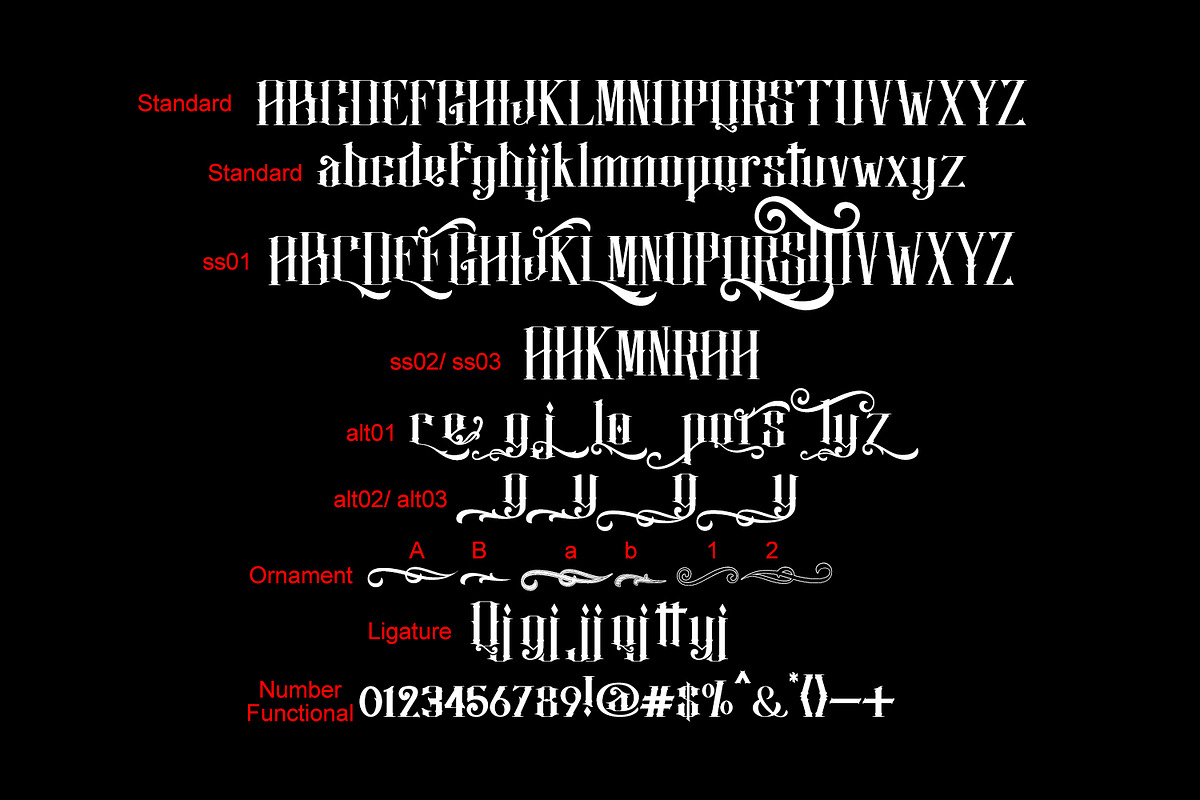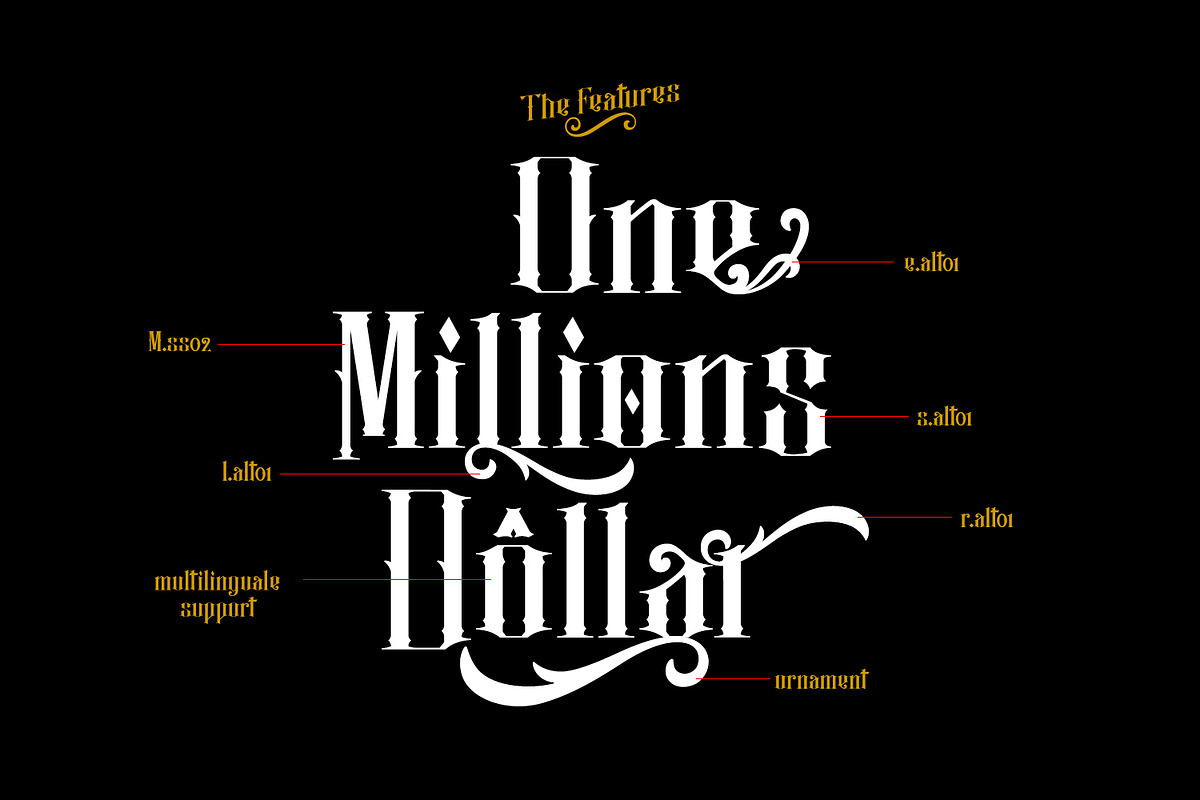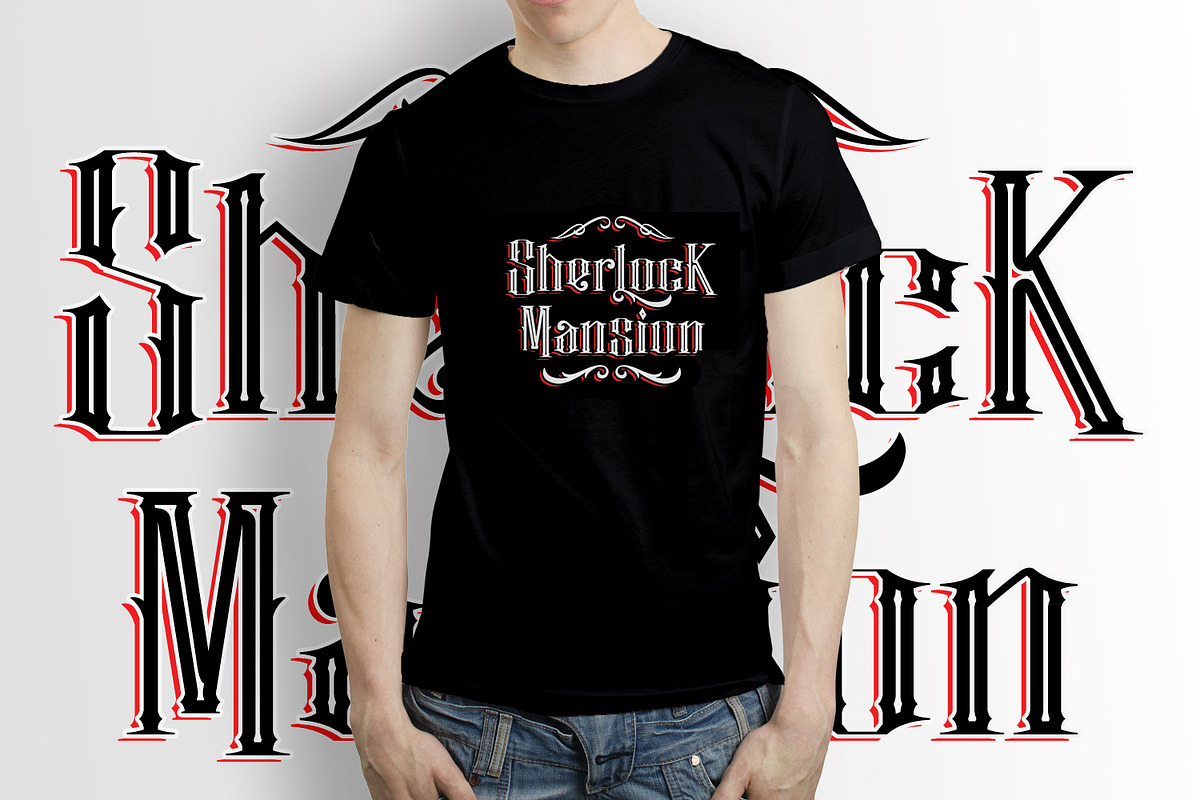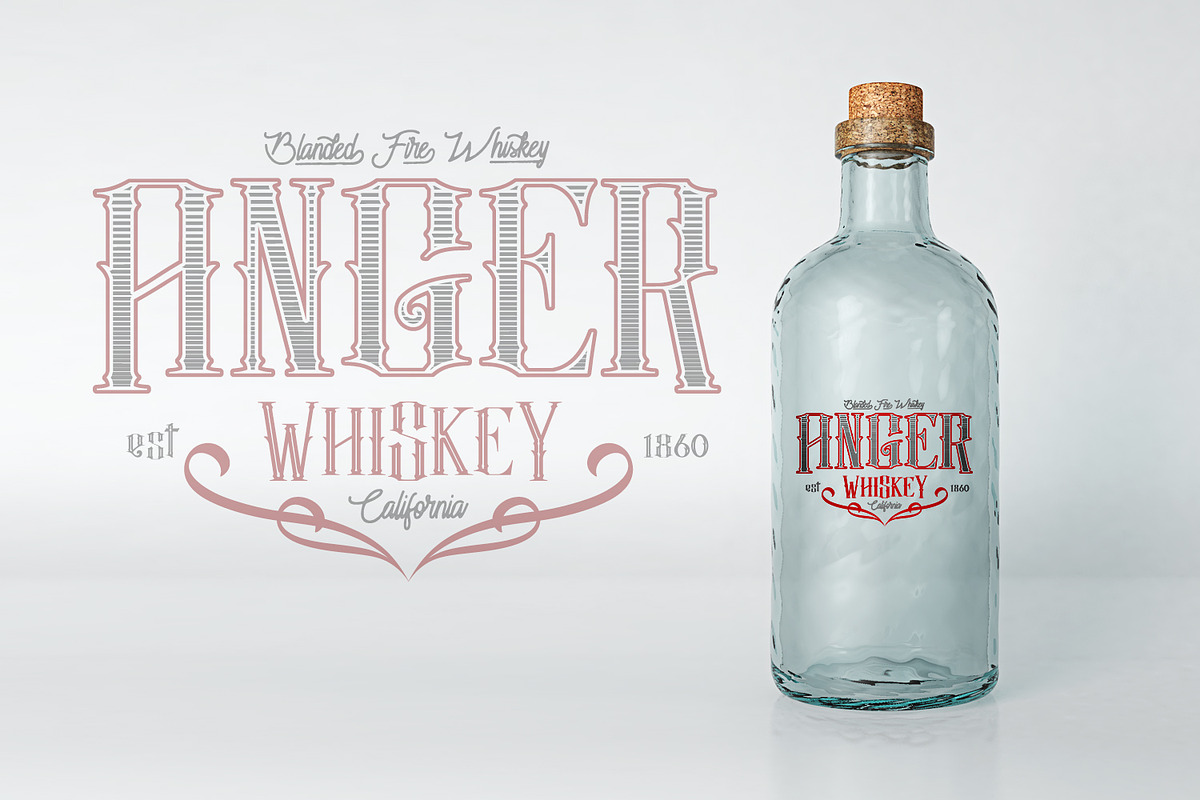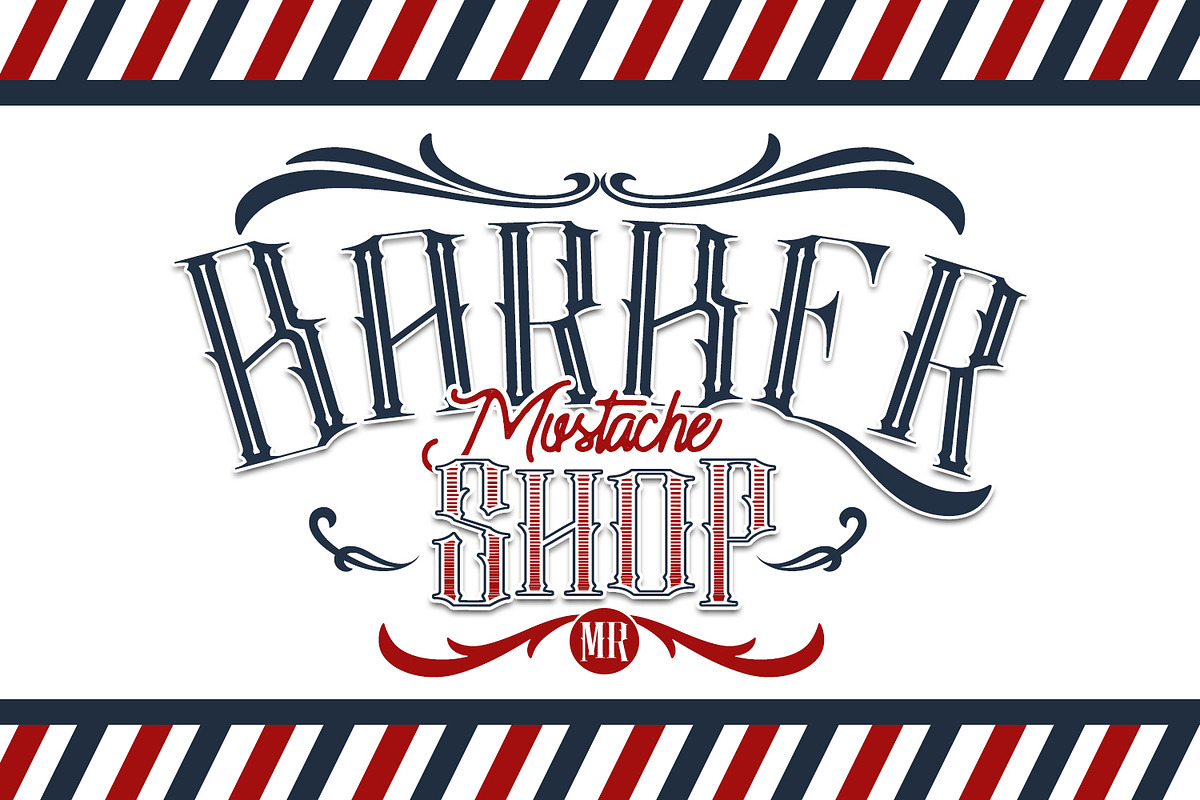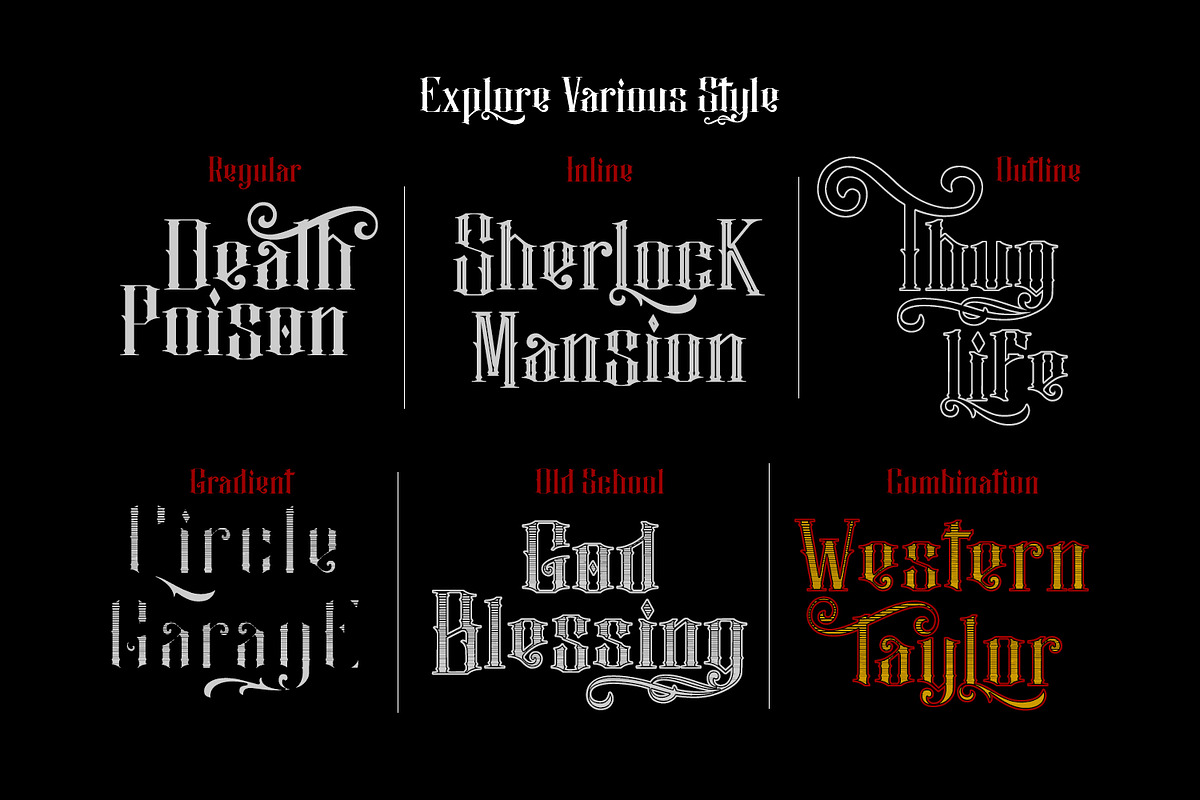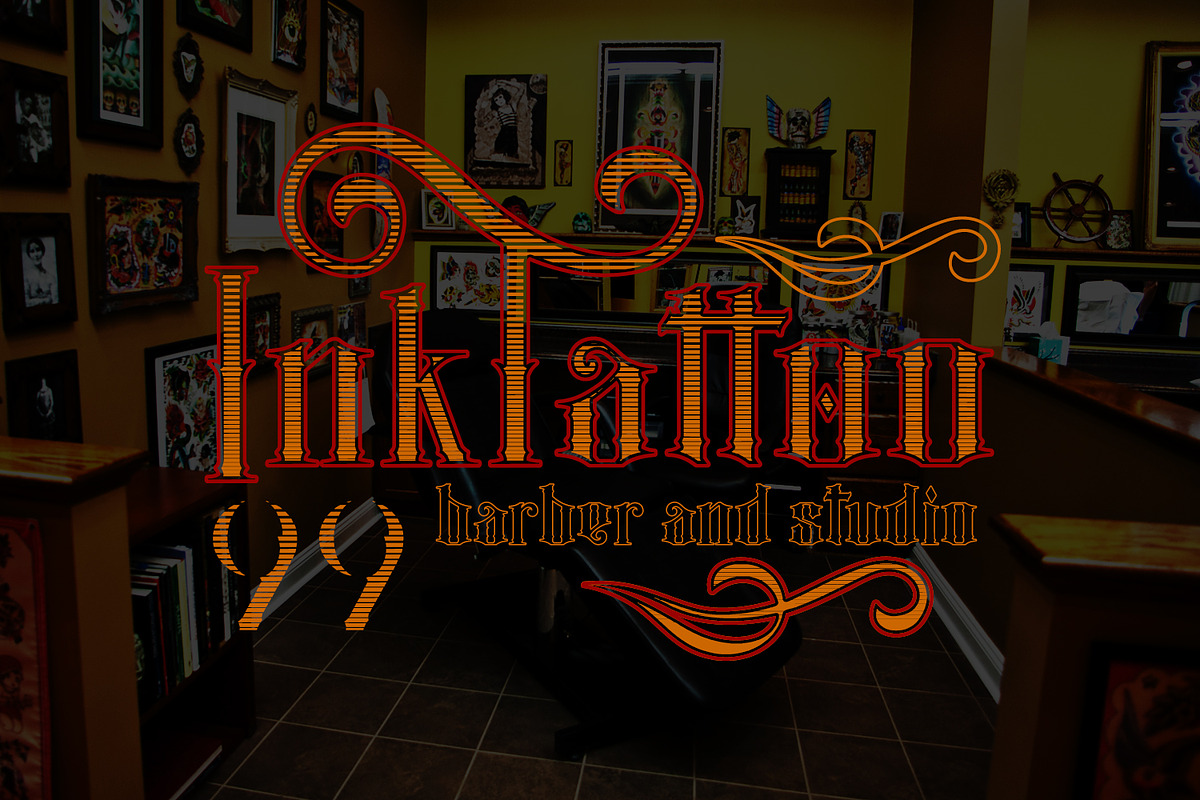
Justify I Blackletter Font
Really excited to introduce fresh from the oven Justify Fonts Package is a typeface inspired in tattoo letters! Justify have six style plus ornament, Justify perfect for all your designs project.
- Feature Uppercase & Lowercase Number & Symbol International Glyphs Alternative Ligature If you need anything else just shoot me on email at:
- Justify Regular
- Justify Gradient
- Justify Inline
- Justify Old School
- Justify Ornament
- Justify Outline